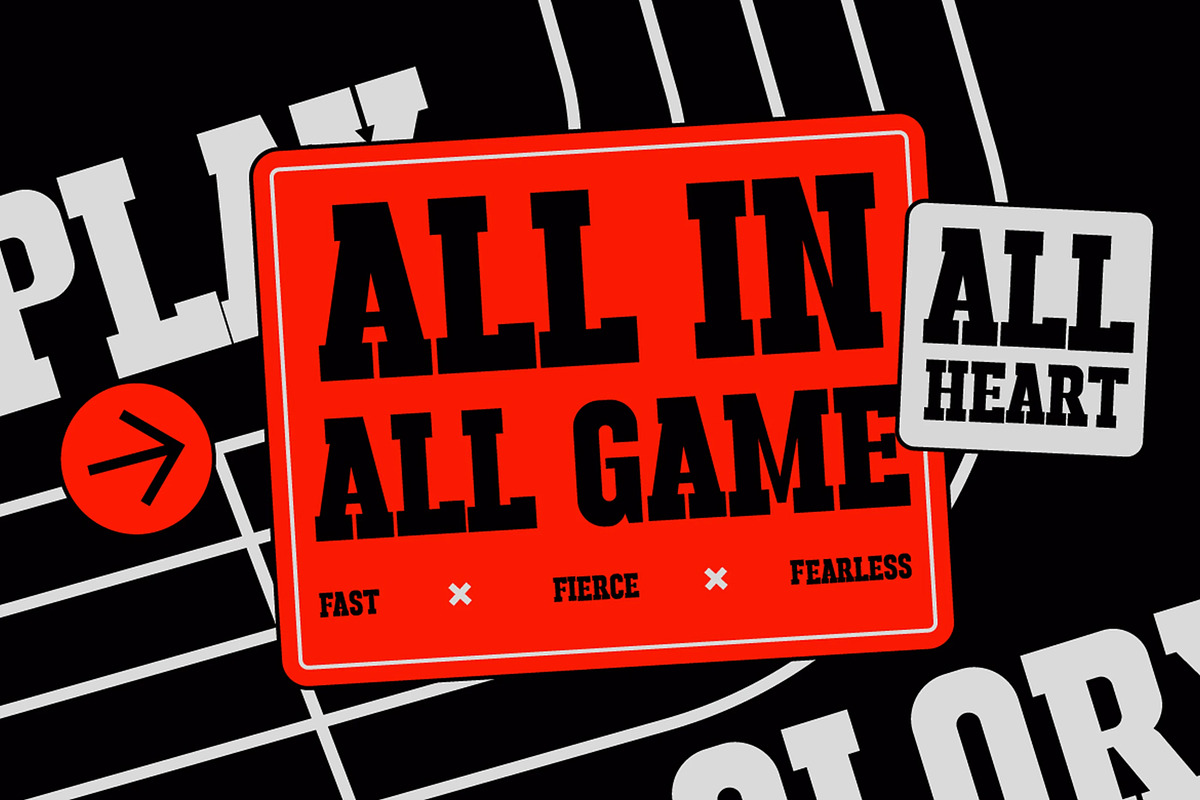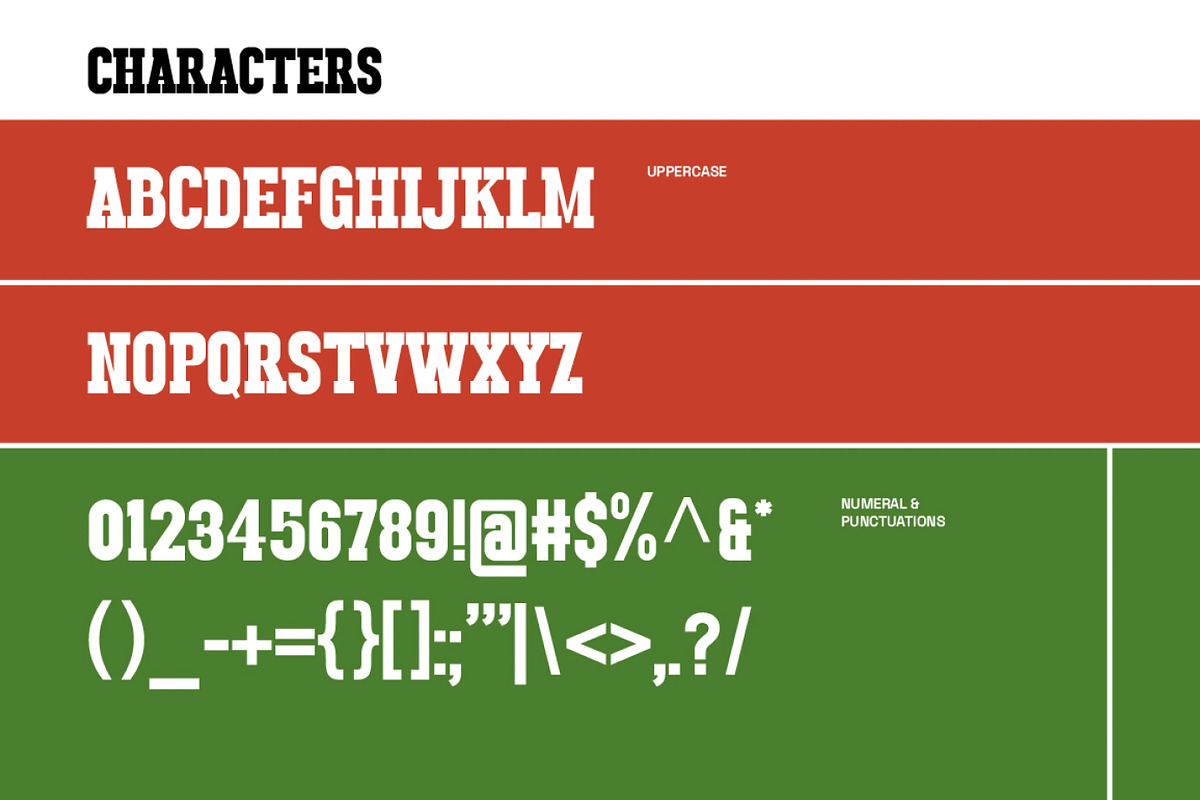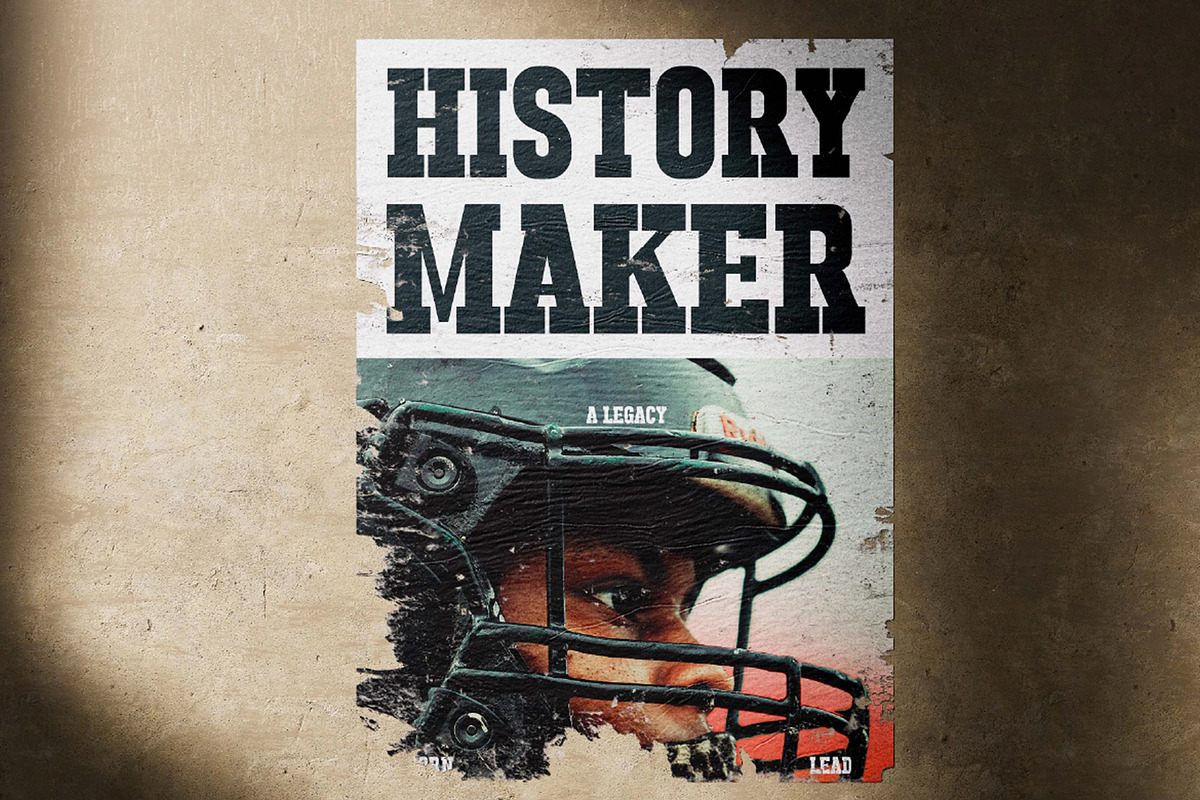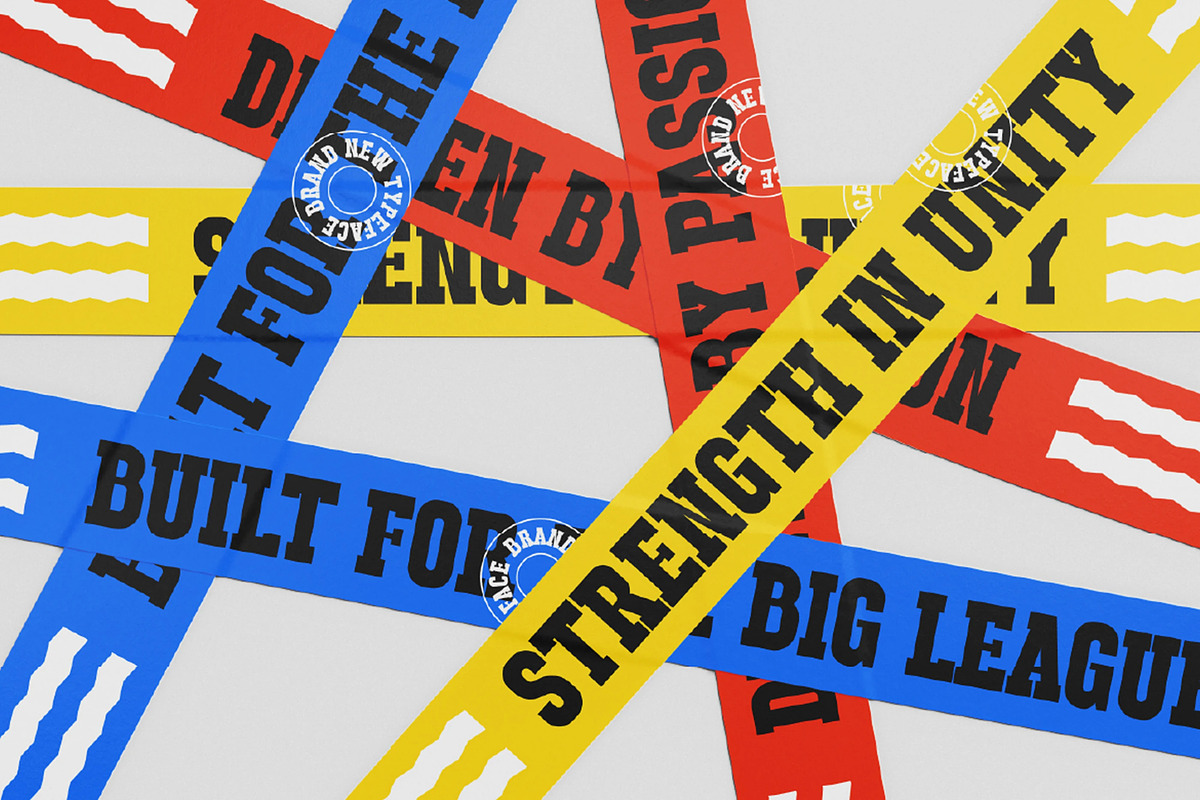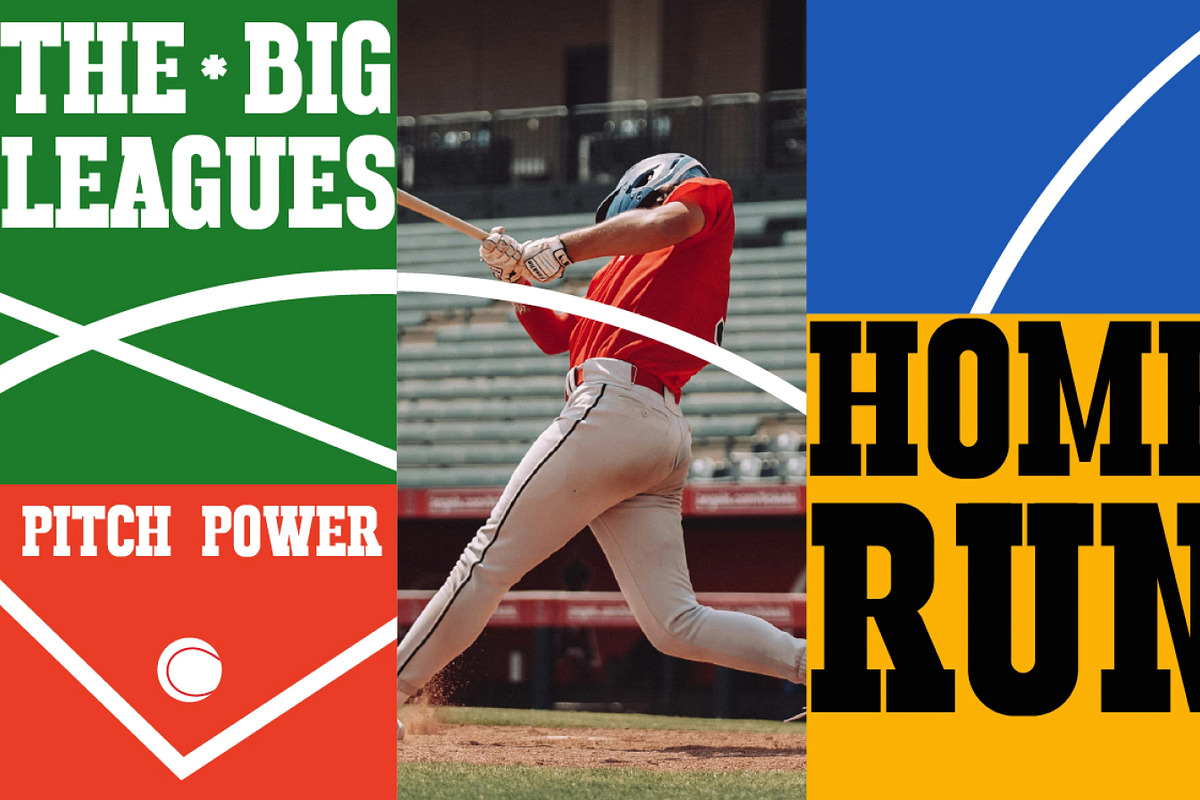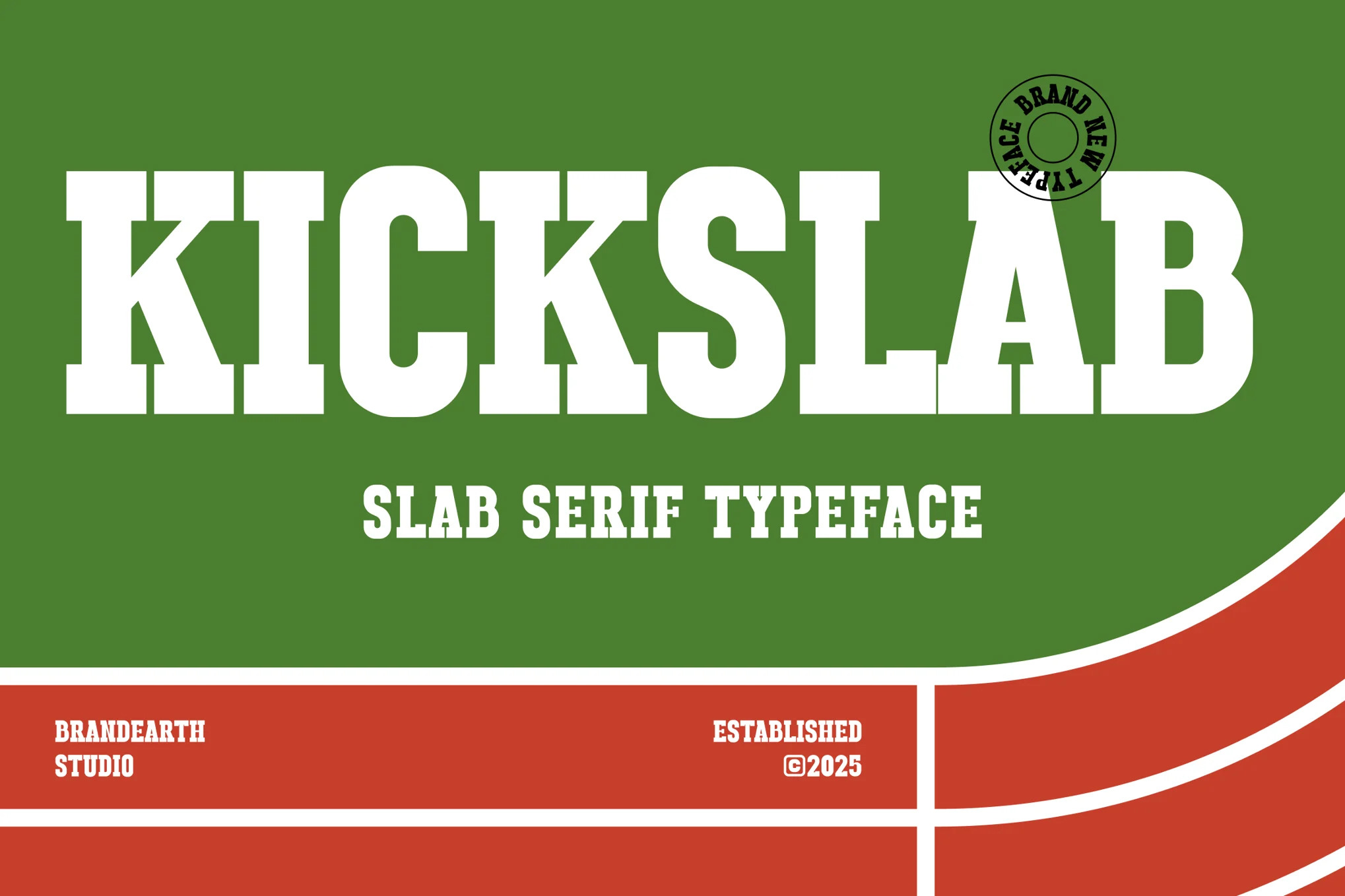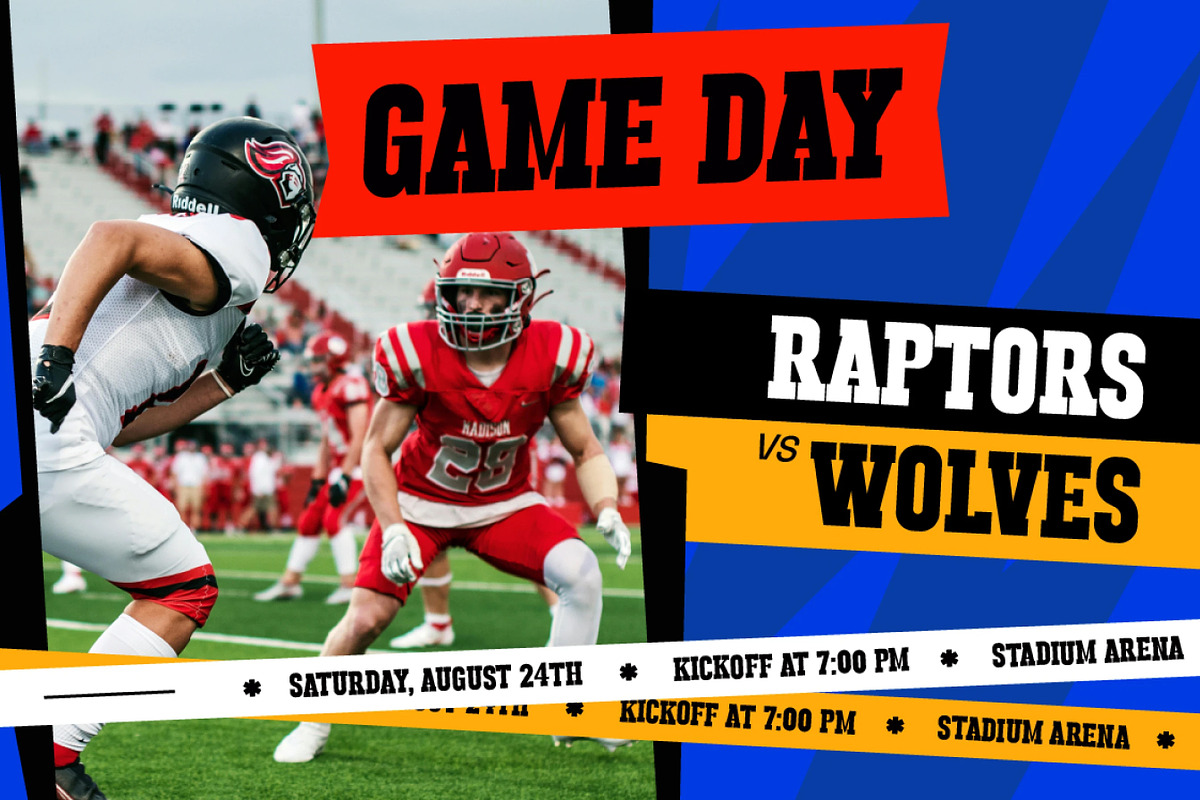
Kickslab – Athletic Slab Serif Font
Kickslab is a bold and athletic slab serif font designed with strong blocky serifs, high-impact shapes, and confident character forms. Built for the modern era of sports and digital branding, it captures a sense of power, precision, and motion in every letterform. Its energetic and commanding style makes it a great choice for sports branding, team logos, posters, editorial titles, and bold typographic compositions.
The letterforms in Kickslab are crafted with sharp, structured strokes and a sturdy rhythm that gives the typeface a strong and dynamic presence. It features a modern athletic edge that is perfect for esports identity, gym and fitness branding, game day graphics, and high-energy promotional campaigns.
With its commanding presence and contemporary display style, Kickslab bridges the gap between raw athletic strength and modern design sensibility. It provides bold visibility while remaining versatile, making it ideal for apparel design, event banners, technology branding, and motivational campaigns that demand strength and impact.